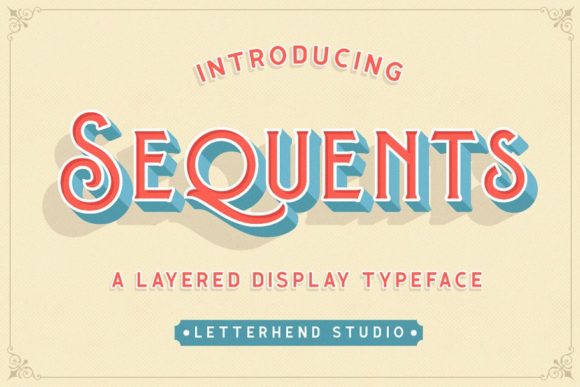
Step into the realm of typography artistry with Sequents Font, a captivating display font family that casts enchanting shadows on your text. Crafted by the ingenious letterhend, Sequents is not just a font; it's an expression of creativity, flair, and limitless potential. With its layered structure, Sequents transforms ordinary text into visually stunning masterpieces that command attention and leave a lasting impression.
Unleash your imagination and let Sequents take your designs to soaring heights. Its versatility knows no bounds, making it an ideal choice for an array of creative endeavors. Dive into the world of logos, branding, posters, flyers, social media graphics, and so much more. Sequents breathes life into your artistic visions, leaving a trail of wonder and enchantment in its wake.
Indulge in the intricate dance of light and shadow as Sequents weaves its magic. Experience the joy of watching your words dance across the screen, casting captivating shadows that enhance their meaning and depth. Let Sequents transport you to a realm where imagination reigns supreme and creativity flows effortlessly.
Immerse yourself in the beauty of Sequents Font and elevate your designs to new heights. Its enchanting shadows will captivate your audience, leaving them mesmerized by the visual symphony you've created. Step into the realm of creative possibilities and let Sequents ignite your passion for design.